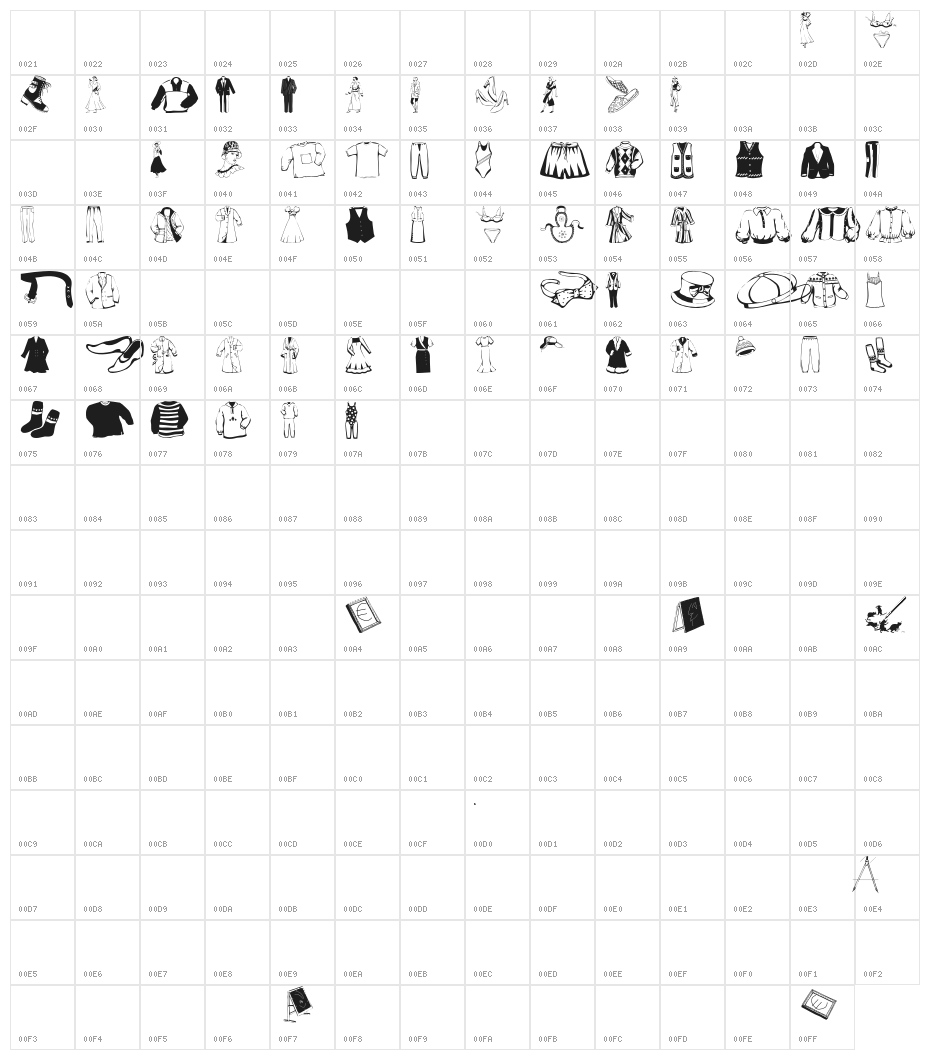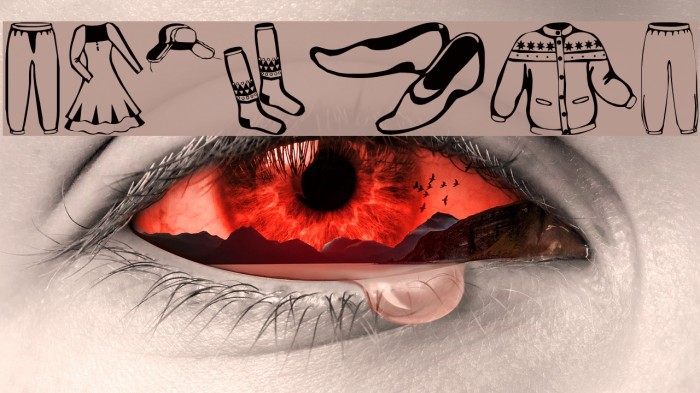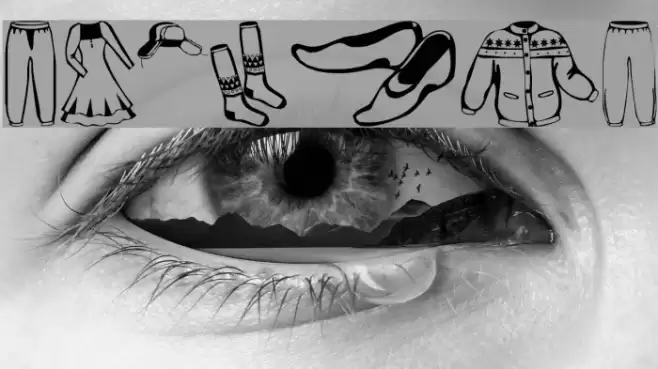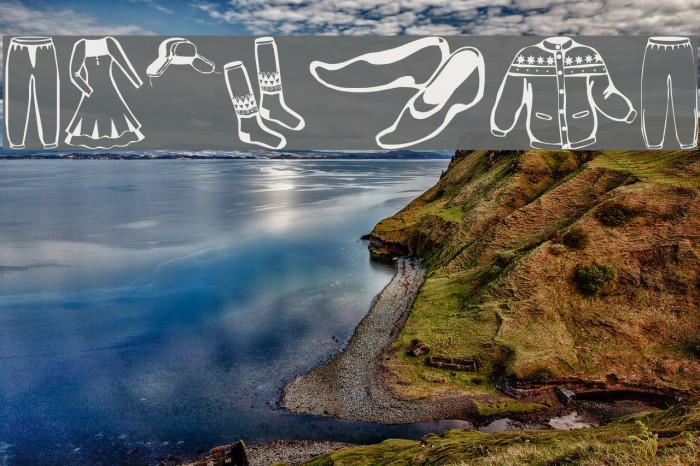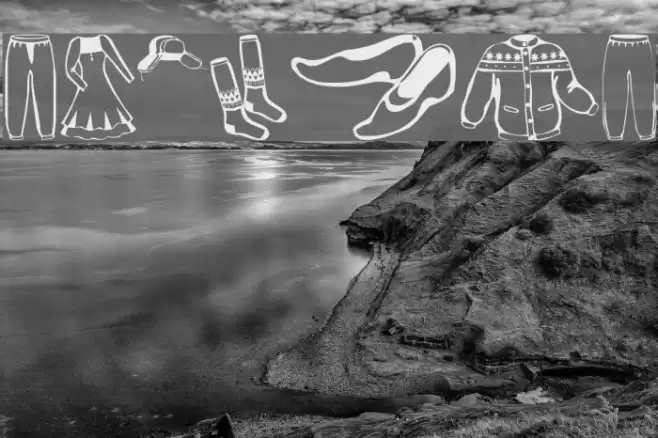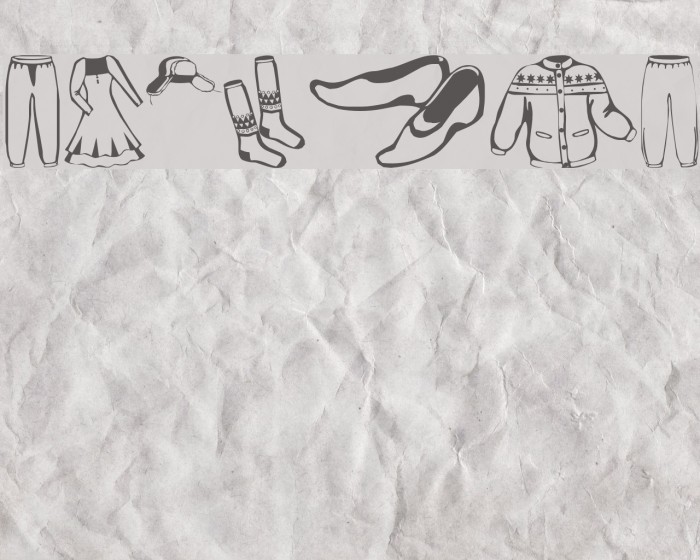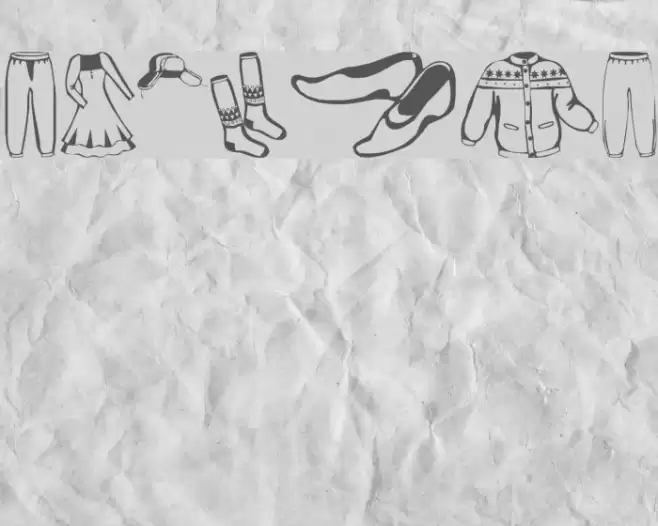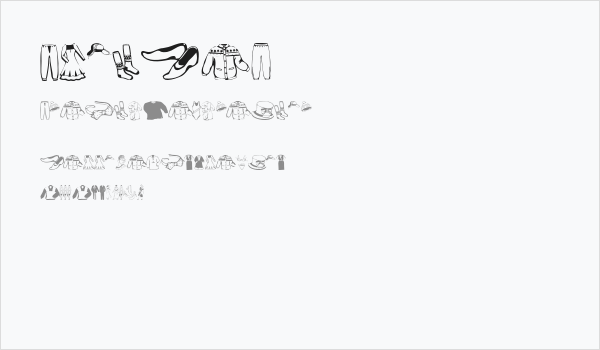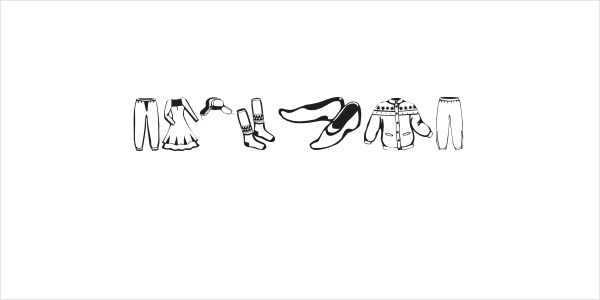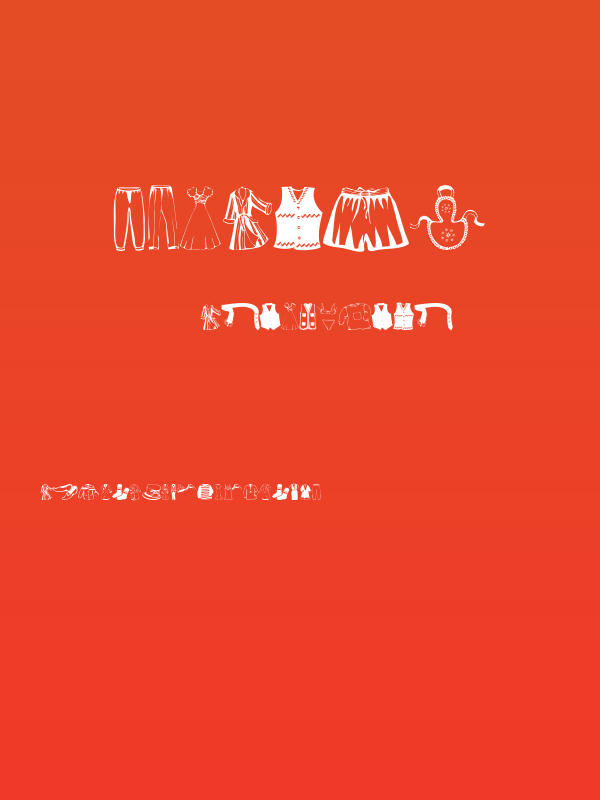
Clothes Font
Clothes Description
A playful, hand-drawn decorative font featuring various clothing and accessory illustrations in place of standard alphanumeric characters and symbols. Each glyph is a unique sketch of apparel or fashion items, with a whimsical and informal style, variable line thickness, and a loose, organic feel.
| Overall Style | Whimsical, Playful, Decorative |
| Use Case | Logos, Headlines, Posters, Themed graphics |
| Proposed Projects | Fashion branding, childrenΓ’β¬β’s books, boutique signage, playful invitations, themed posters. |